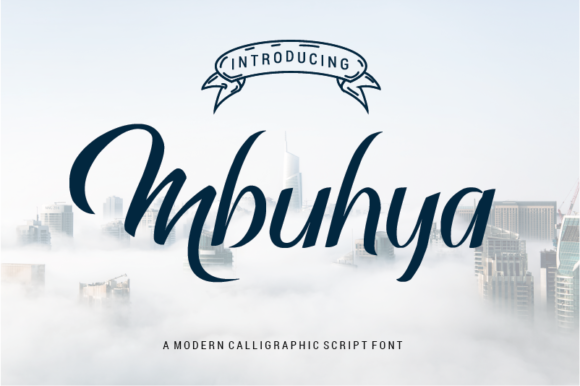
Delve into the realm of sophistication and grace with Mbuhya Font, a handcrafted masterpiece that will captivate your senses and leave you spellbound. This exquisite creation from Smart Studio is not merely a font; it's an artistic journey that will unleash your creativity and transport your designs to new heights of elegance.
Mbuhya Font, a script font adorned with a touch of finesse, possesses an undeniable allure. Its fluid strokes, reminiscent of a calligrapher's delicate hand, dance across the page with effortless beauty. Each letter, meticulously crafted, exudes a sense of artistry that will elevate your designs to new realms of sophistication.
Immerse yourself in the versatility of Mbuhya Font, a font that effortlessly adapts to your creative vision. Whether you're crafting heartfelt wedding invitations, evoking a sense of nostalgia through stationary art, or captivating your audience with eye-catching social media posts, Mbuhya Font rises to the occasion with grace and charm.
With Mbuhya Font at your disposal, you'll discover a world of endless possibilities. Let your imagination soar as you create stunning logos that exude professionalism and elegance, or compose social media posts that radiate with personality and flair. Mbuhya Font's versatility knows no bounds, allowing you to express your unique style in countless ways.
Mbuhya Font is more than just a collection of characters; it's an invitation to embark on a creative adventure. Its exquisite design will ignite your passion for design and leave an unforgettable impression on your audience. As you witness the transformation of your projects with Mbuhya Font, you'll realize that you've found a font that truly captures the essence of artistry.